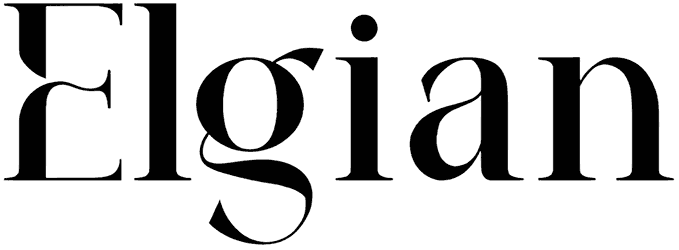
Agoka Family Font
Agoka Family is a very well-recognizable serif font that is a mixture of elegance and classicism. This masterpiece can be perfectly fit for any kind of professional graphic purpose, including business cards, branding, stationery, or social media posts.
This font has the true potential to turn your artwork into a timeless piece of art, so ignore the lack of numbers and immediately pick up this luxury font for your editorial projects.